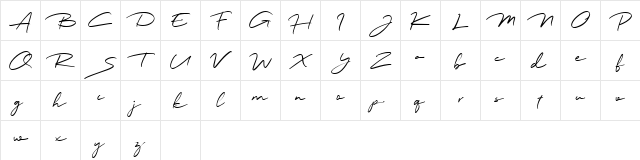
Jadyn Maria Free Regular
Design Context for Jadyn Maria Free Typeface
Jadyn Maria Free is a composed and adaptable typeface that performs quietly and consistently across a wide range of design contexts.